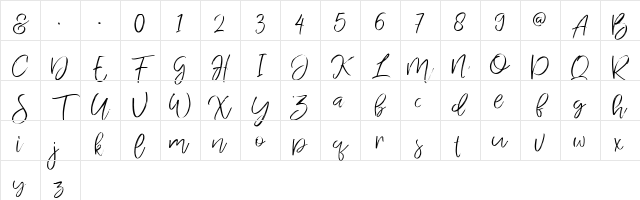
Jandys dua is a composed and adaptable typeface that performs quietly and consistently across a wide range of design contexts.
Pro Tip: Use Jandys dua in both headline and body roles to test its range before committing to a single application.